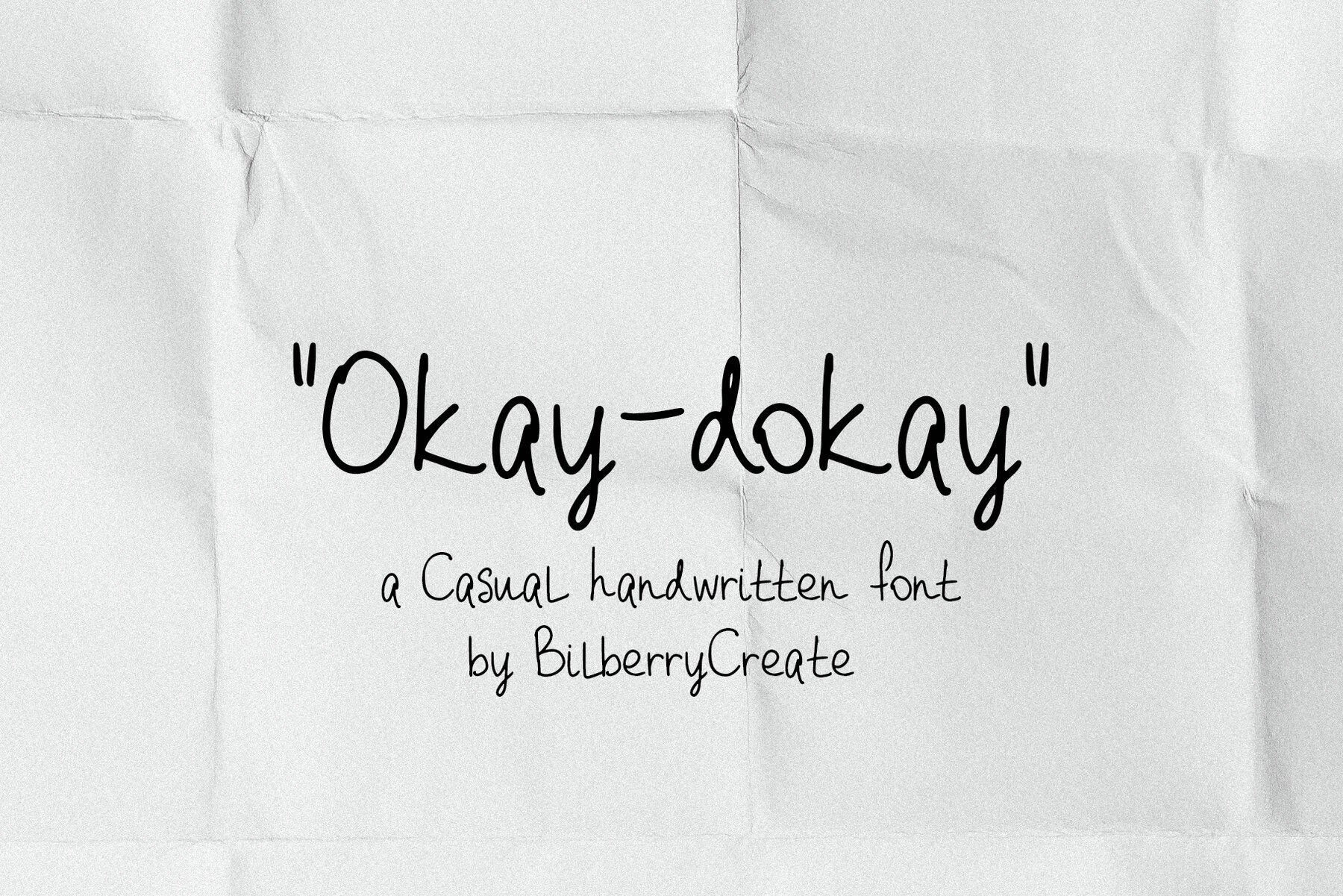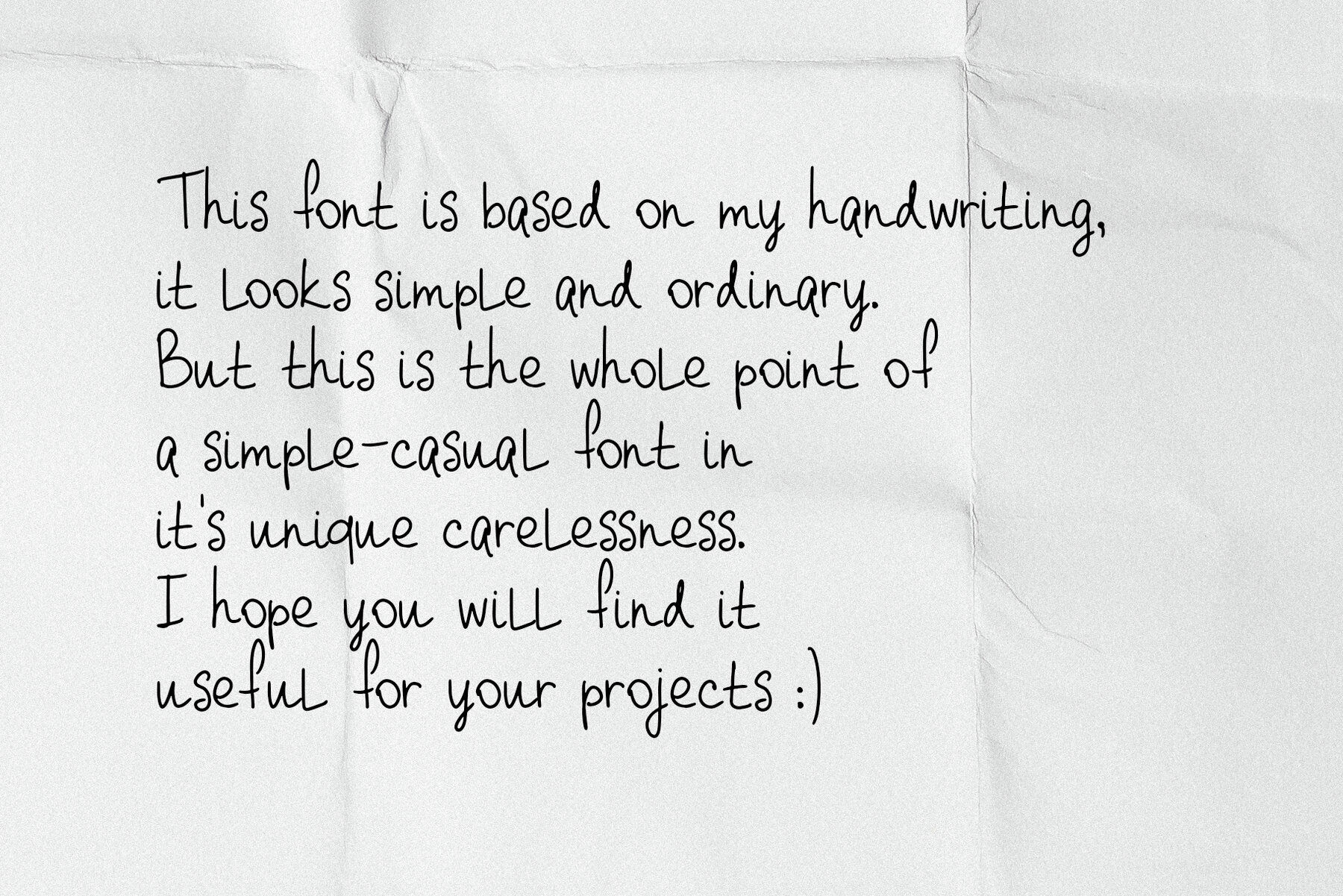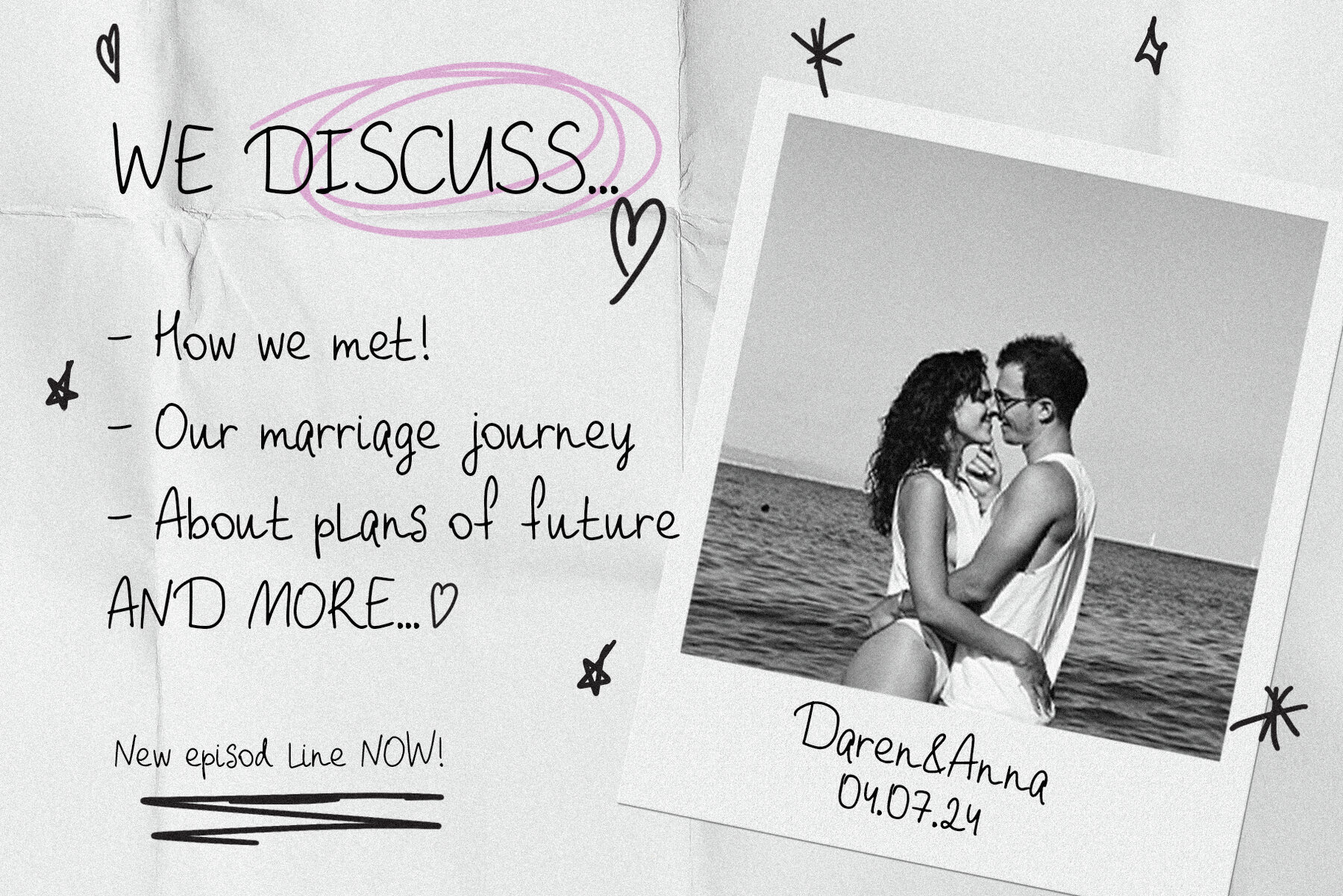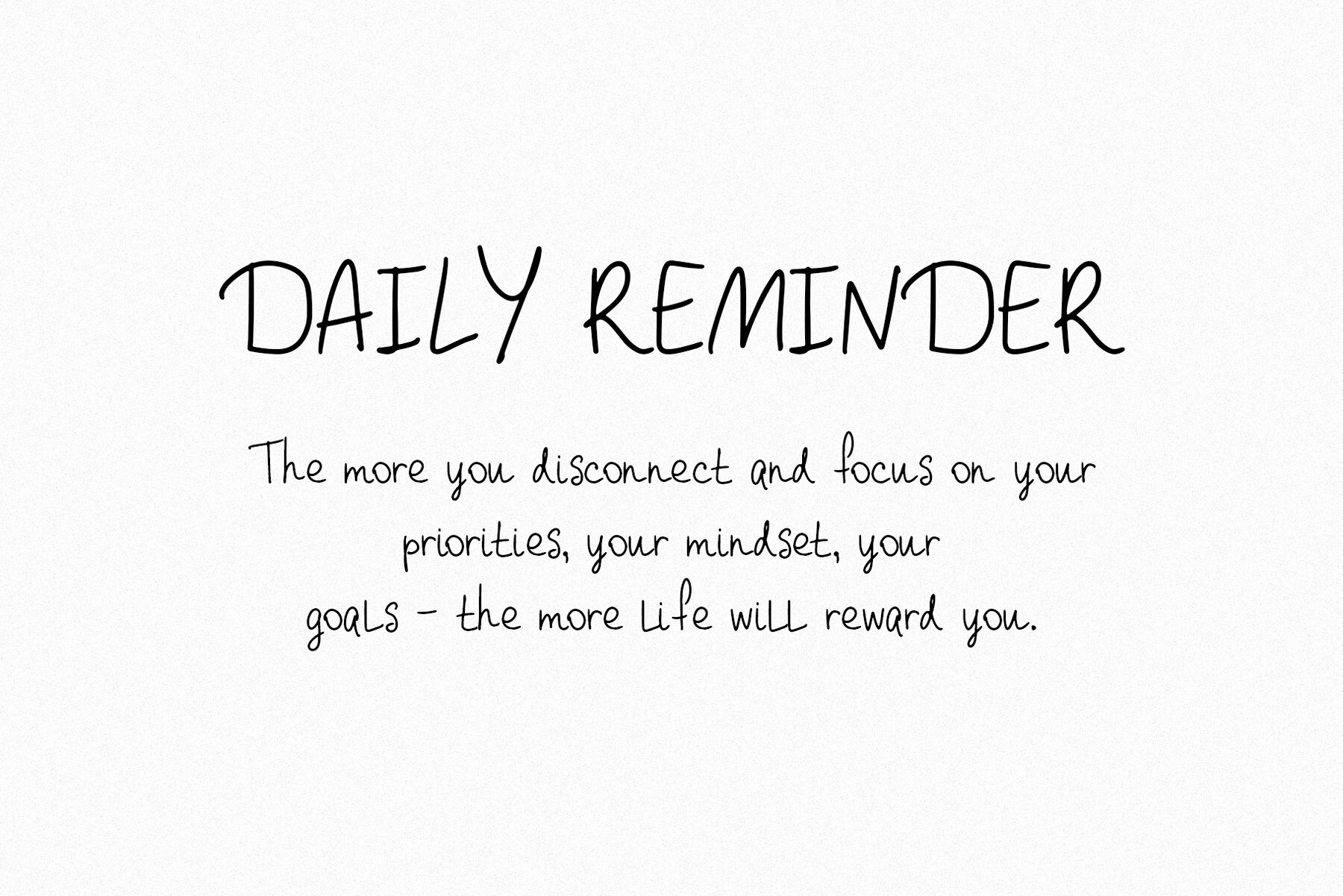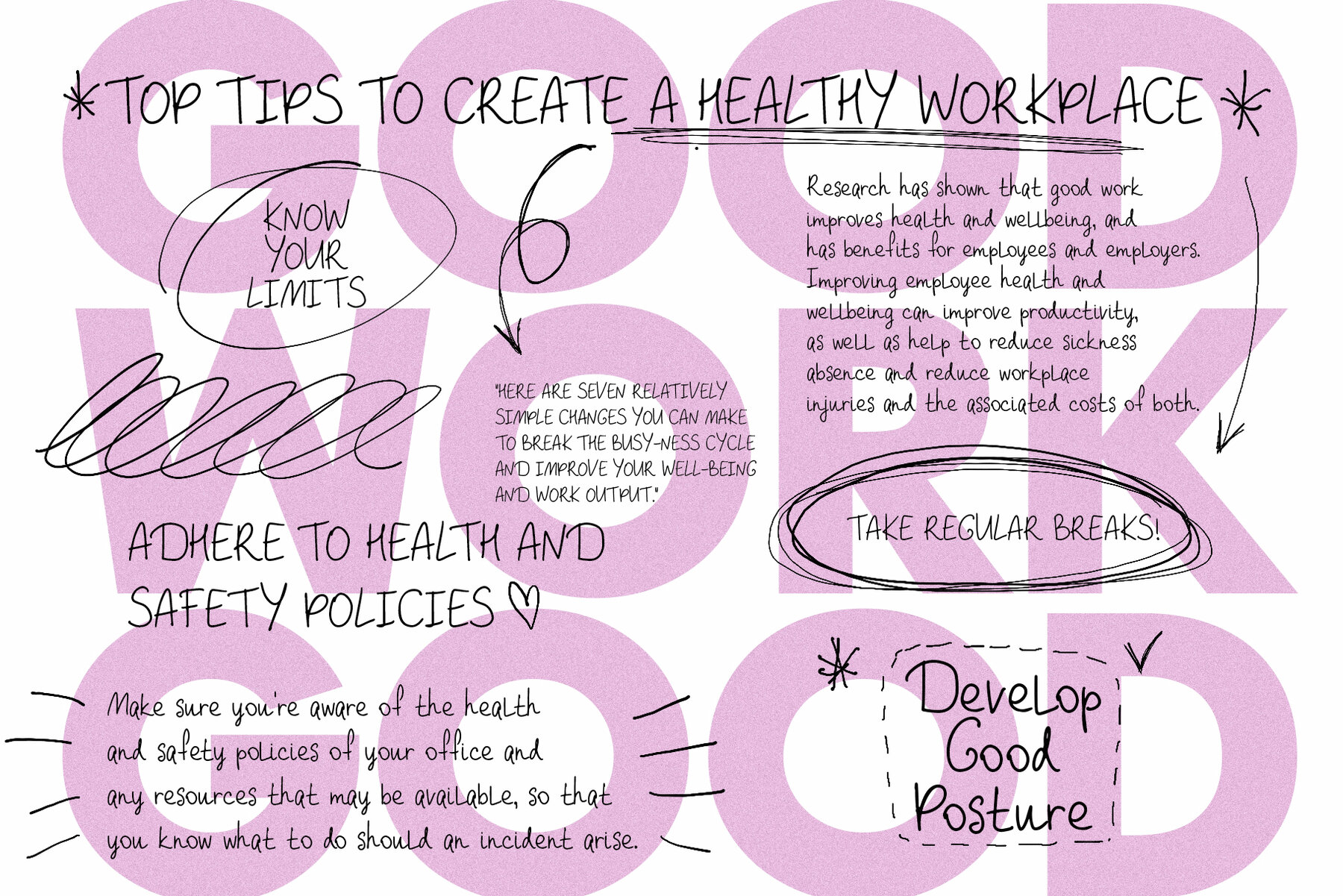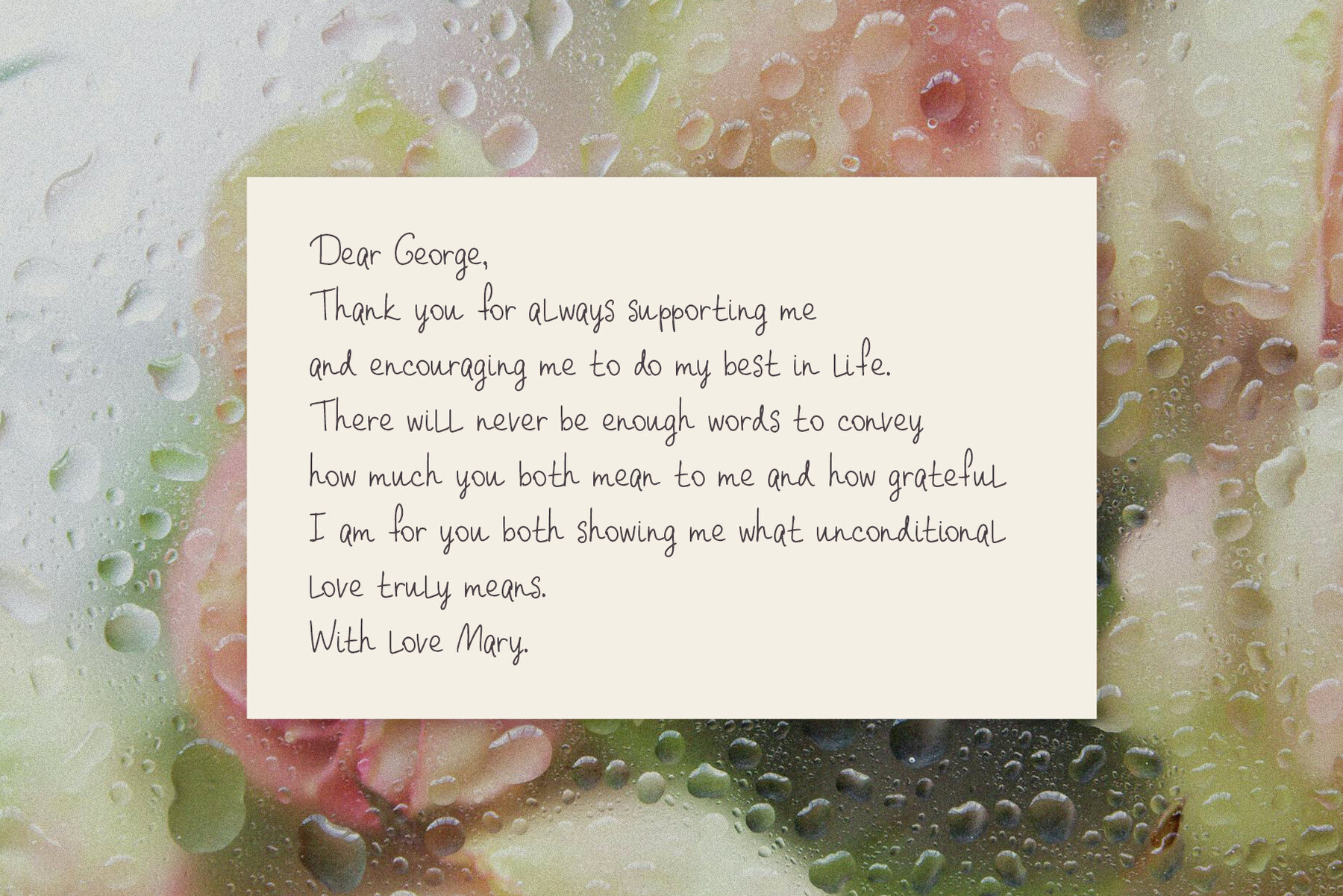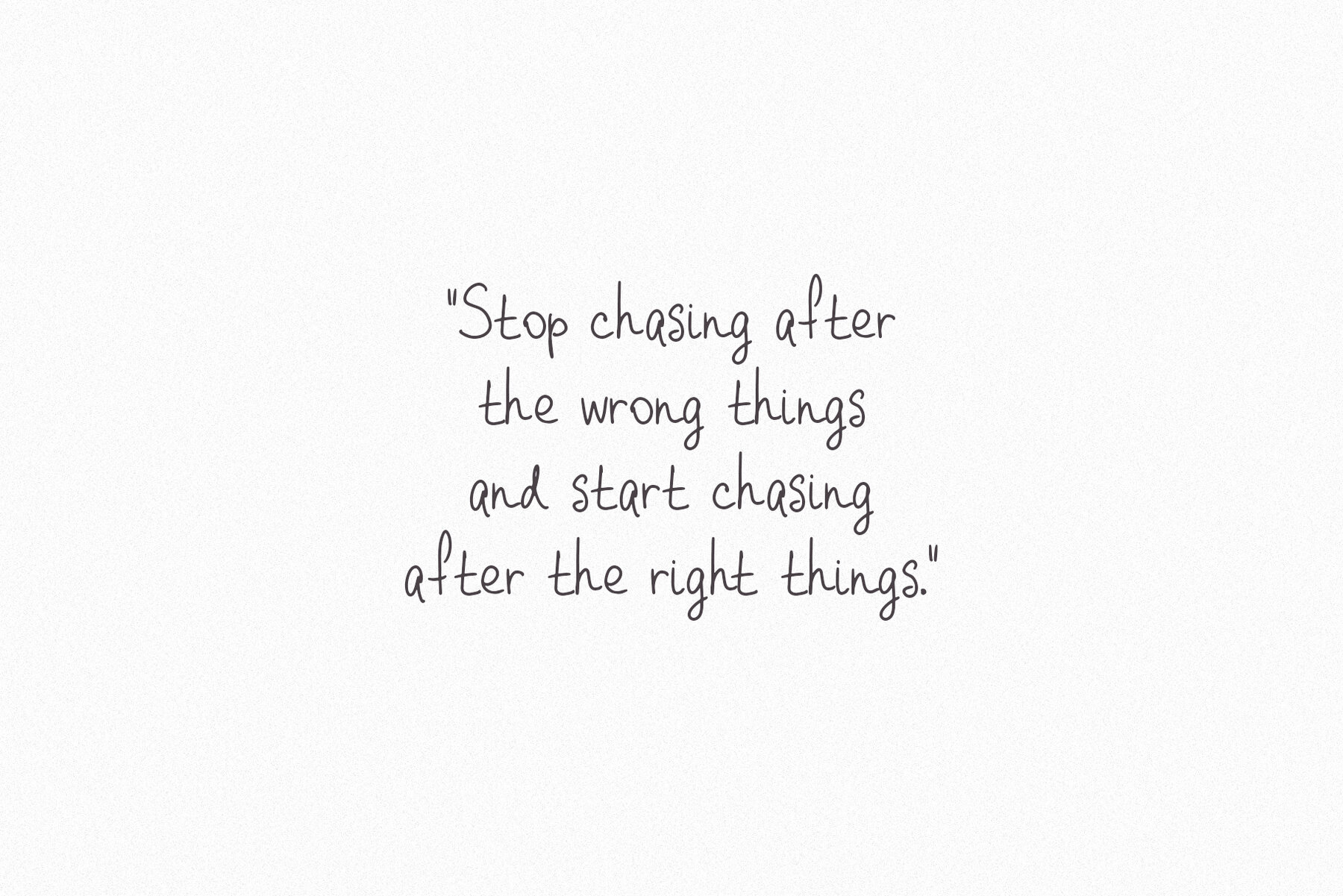
Okay Dokay Font
Okay dokay Regular
"Okay-Dokay" is a casual handwritten font, perfect for adding a personal touch to any project. Its playful and unique design makes it ideal for a variety of uses, from logos and invitation cards to home decor and packaging. Add a distinctive flair to wedding cards, birthday cards, holiday gifts, and party decorations.
This versatile font can also be used for fabric prints, ensuring your creations stand out. Enhance your digital images with this charming handwritten style, making your designs more beautiful and unique.